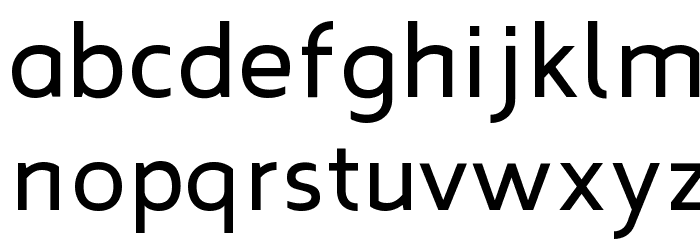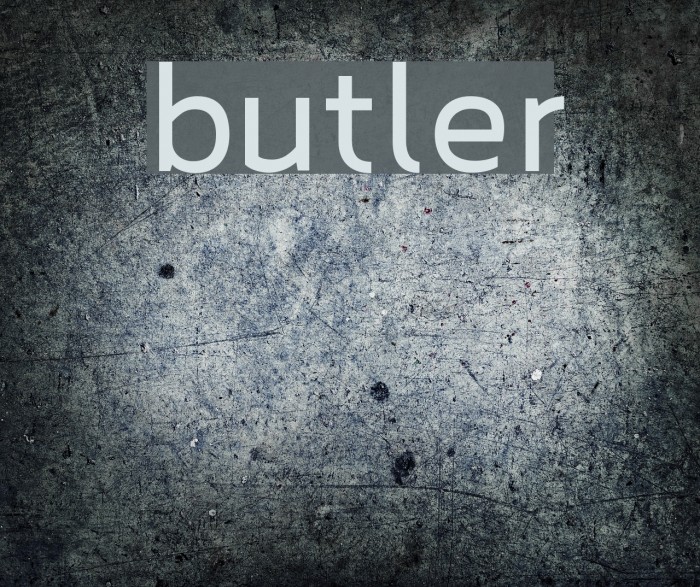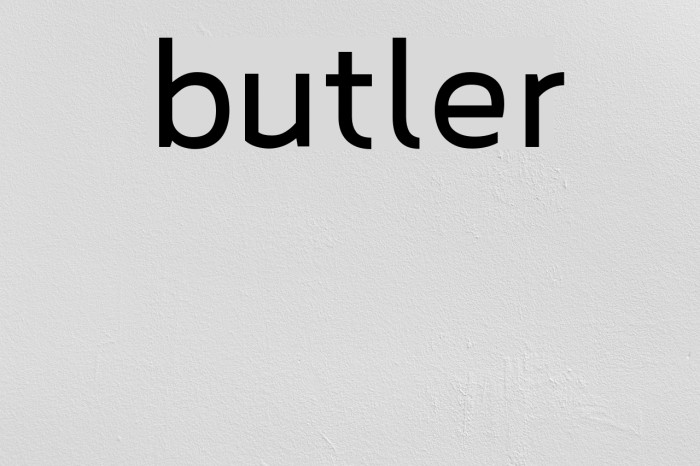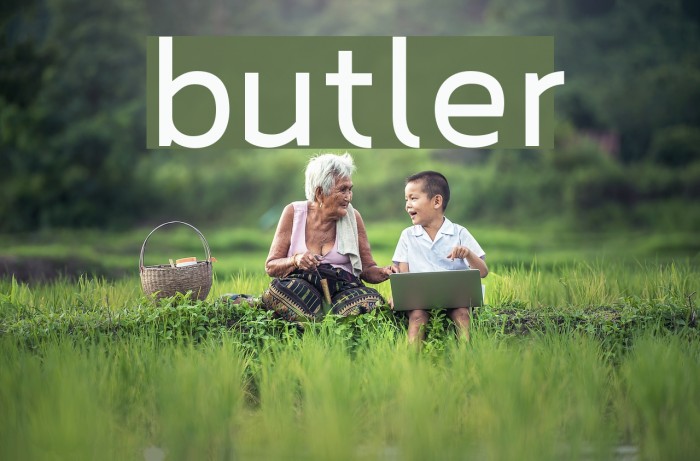
butler Font
This font features a clean and modern sans-serif design, characterized by its geometric shapes and even stroke widths. The uppercase letters are bold and assertive, while the lowercase letters maintain a consistent and harmonious appearance. The numerals are straightforward and align well with the overall style, ensuring readability. The special characters are designed to complement the alphabet, maintaining the same geometric and minimalistic approach. This font's simplicity and clarity make it versatile for various design applications.
A modern, geometric sans-serif font with clean lines and even strokes.
- Proposed Projects: Ideal for branding, web design, advertising, and editorial projects where clarity and modernity are desired.
- Category: Sans-Serif
- Use Case: Headlines, Body text, Logos